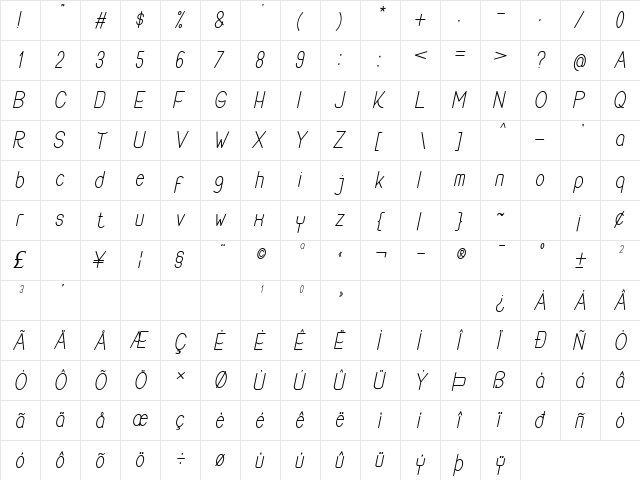
Buon Umore Italic Italic
Design Context for Buon Umore Italic Typeface
Buon Umore Italic is a composed and adaptable typeface that performs quietly and consistently across a wide range of design contexts. The slanted form adds forward momentum and visual energy.